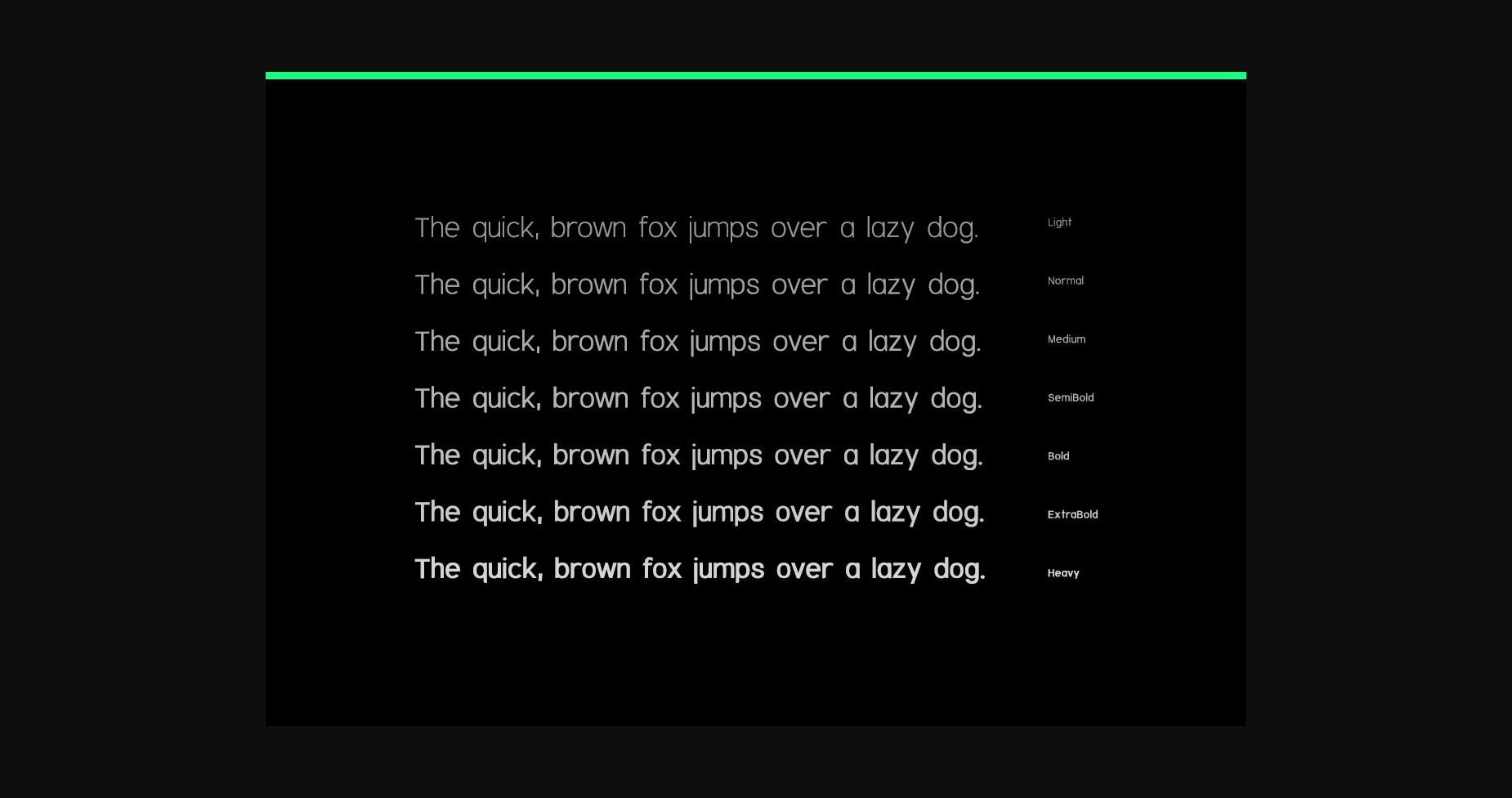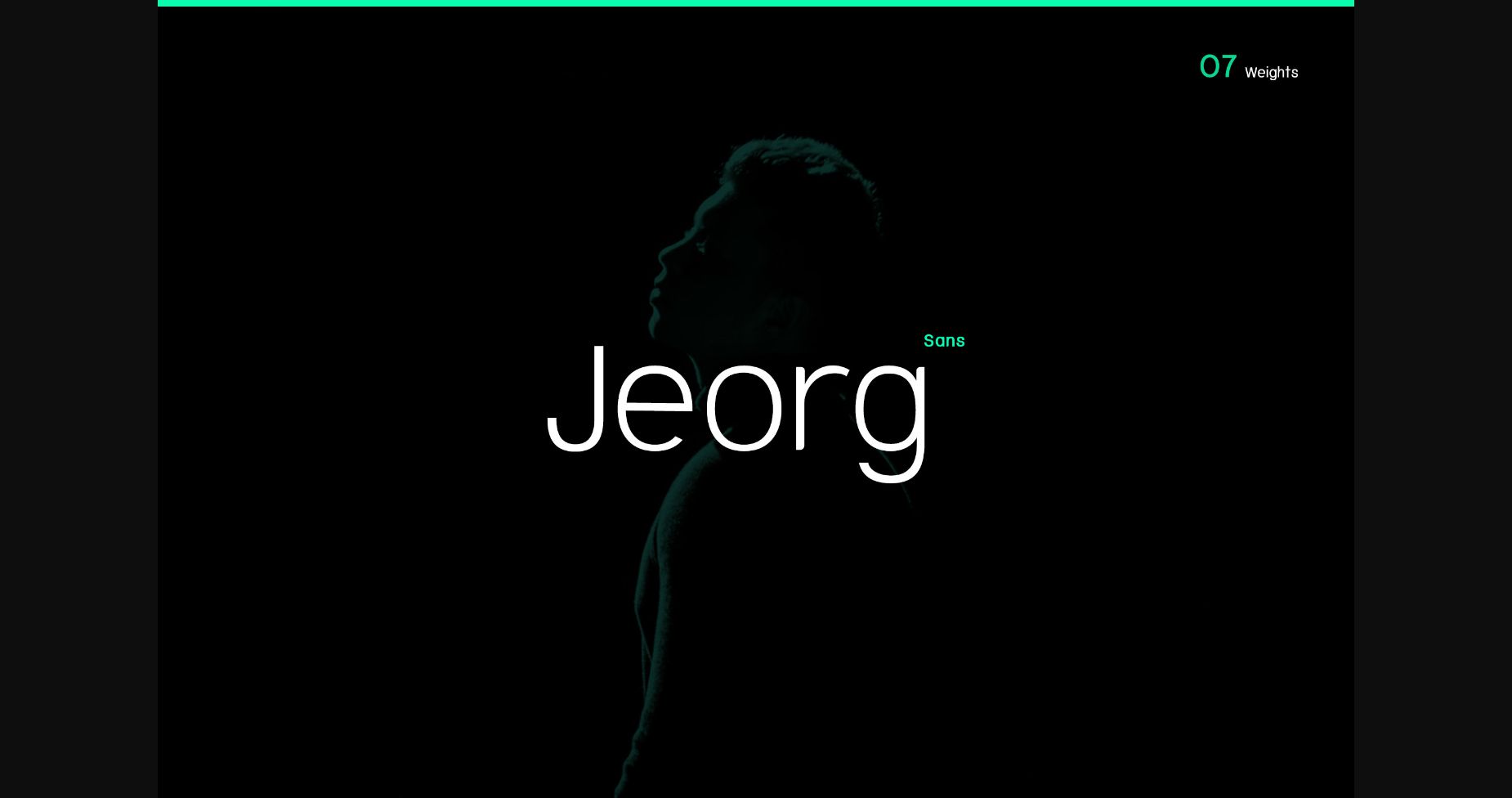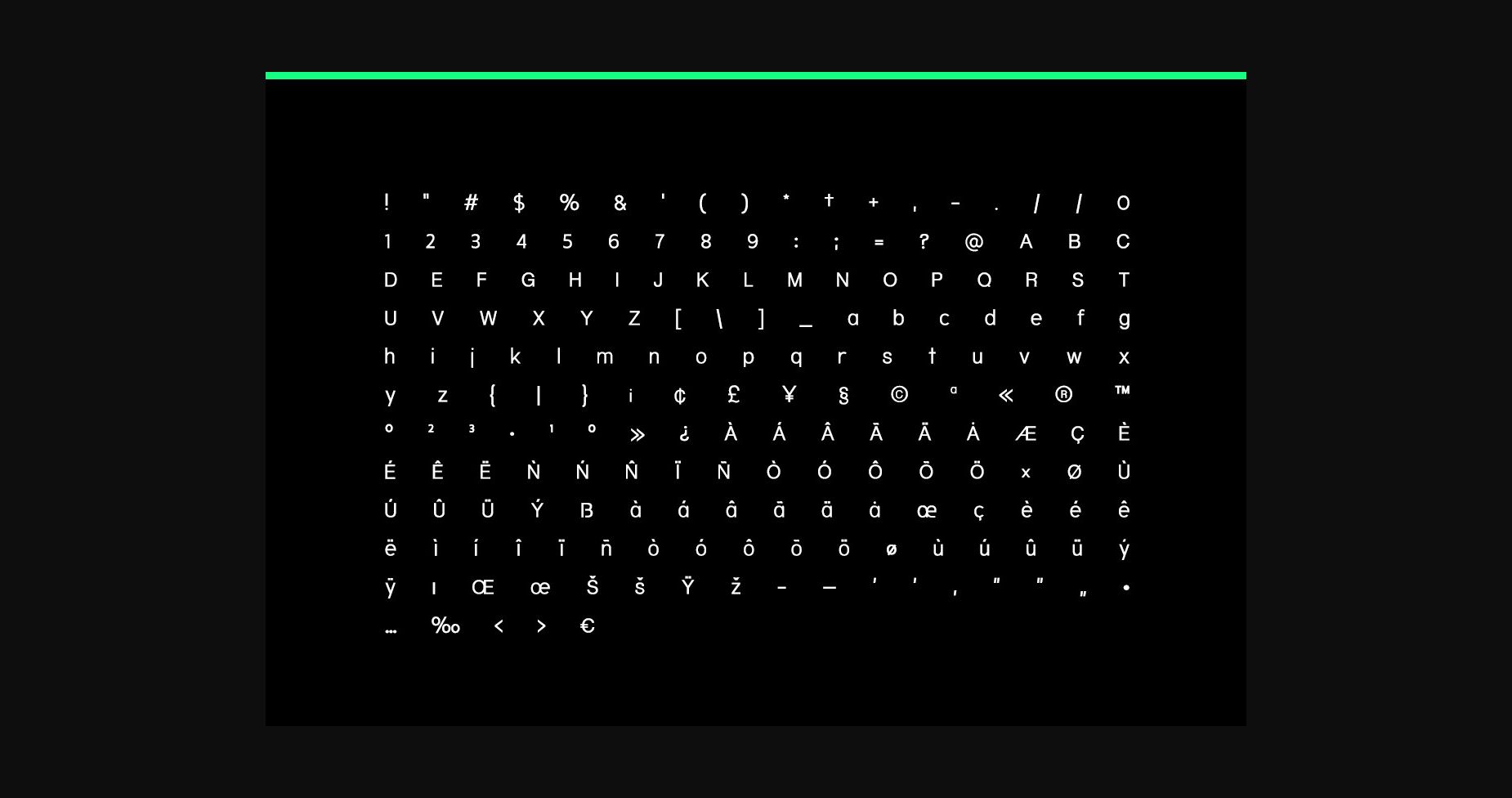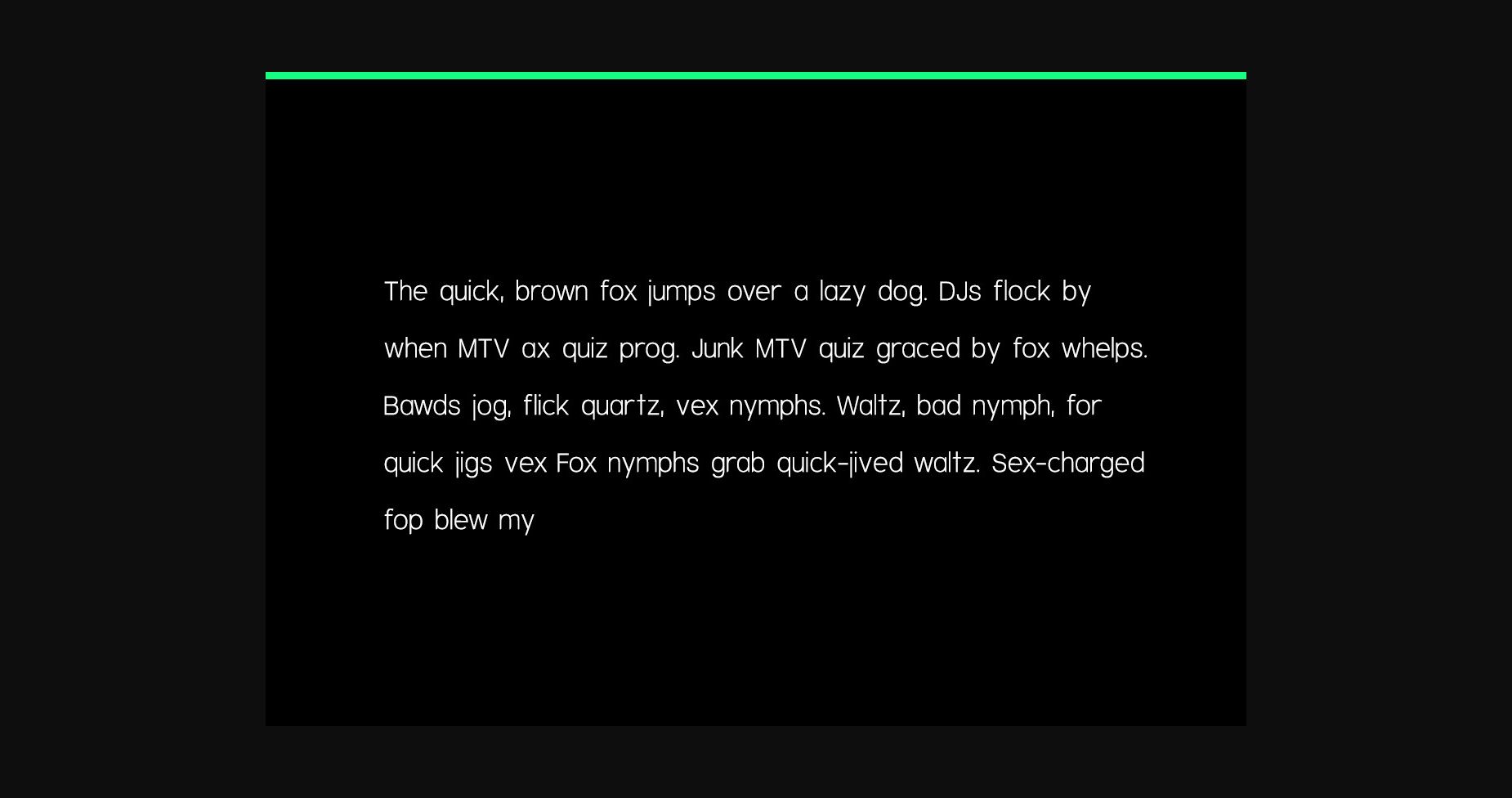
HomeSans Serif FontsJeorg Font Sans Serif Fonts Jeorg Font FacebookXPinterestWhatsApp 1 of 6 ... Jeorg Font Poster 2... Jeorg Font Poster 3... Jeorg Font Poster 4... Jeorg Font Poster 5... Jeorg Font Poster 6... About Jeorg Font Jeorg is a minimal and neat sans serif font. It can easily be matched to an incredibly large set of projects, so add it to your creative ideas and notice how it makes them stand out! DOWNLOAD NOW People also explored Remember Font Purple Can Cooler Mockup Welcome Electra Font Queer Anthurium Font Love Font Barlista Font Calming Adventure Font 357 0 TagsJeorgJeorg Font Previous articleManuver FontNext articleGiltta Font LEAVE A REPLY Cancel reply Comment: Please enter your comment! Name:* Please enter your name here Email:* You have entered an incorrect email address! Please enter your email address here Website: Save my name, email, and website in this browser for the next time I comment. Personal Use Free Eric”s Personal Use Free Read more about this font Fifty Five Personal Use Free Read more about this font Nottingsam Personal Use Free Read more about this font BD Algebra Personal Use Free Read more about this font BLOG How to Install and Use Fonts on Windows, macOS, and Web Projects How to Install and Use Fonts on Windows, macOS, and Web Projects Fonts are a crucial part of design and branding. Whether you’re designing a... Modern Sans-Serif Fonts That Brands Love in 2025 Free vs Paid Fonts: Why Investing in Premium Fonts Is Worth It Top 10 Handwritten Fonts That Elevate Your Designs